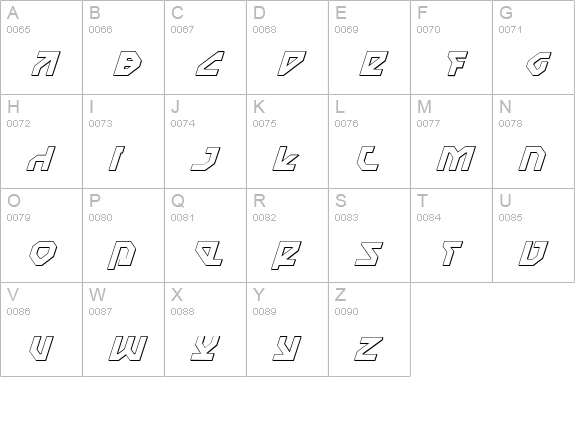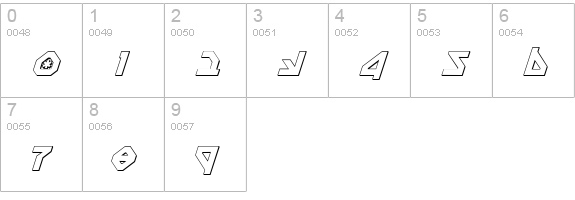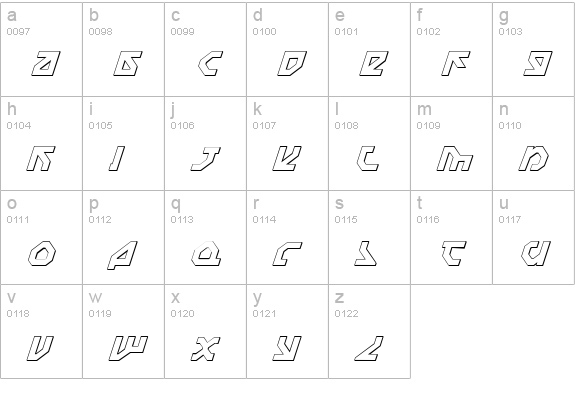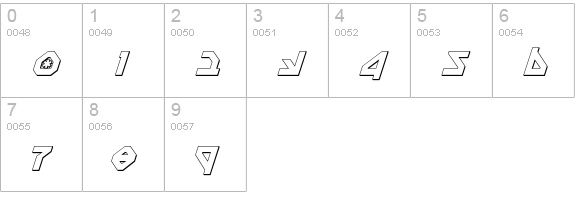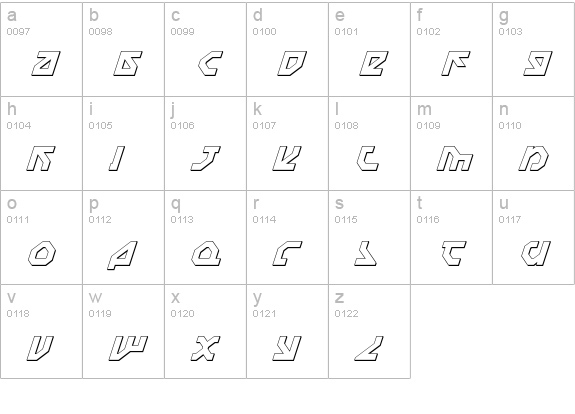
Nostromo 3D Italic is a distinctive, italic variant in the Nostromo typeface family \xE2\x80\x94 well suited to design and typography projects.
Nostromo 3D Italic font is a visually striking typeface that exudes elegance and modernity. Its sleek and three-dimensional design adds a unique touch to any project, making it perfect for branding, logos, headlines, and more. The italic styling adds a sense of sophistication and flair to your text, making it stand out from the crowd. What's even better is that Nostromo 3D Italic font is available for free download at FontsMarket.com. You can easily access this stunning font and incorporate it into your designs without any cost. Don't miss out on the opportunity to enhance your projects with this eye-catching typeface that is sure to leave a lasting impression. Download Nostromo 3D Italic font today and elevate your design game!